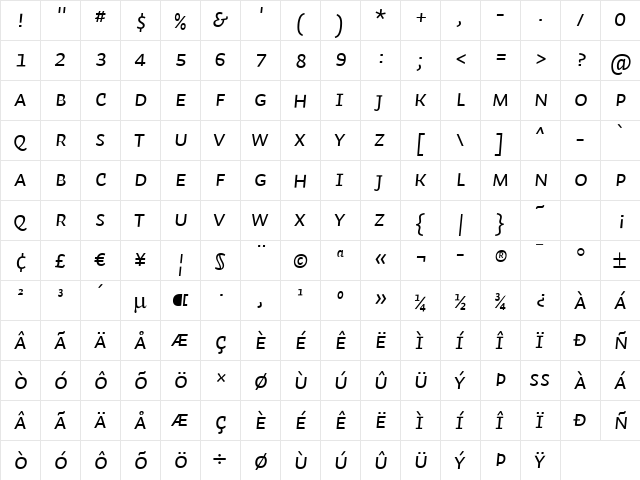
Auto 2 Italic SmCp Font Preview
Auto 2 Italic SmCp
Auto 2 Italic SmCp Font Details
| Style | Italic SmCp |
Design Context for Auto 2 Typeface
Auto 2 is a composed and adaptable typeface that performs quietly and consistently across a wide range of design contexts. The dynamic lean of this cut emphasises speed and emphasis in any layout.
Pro Tip: Use Auto 2 for emphasis, pull quotes, and subheadings where its slanted energy can add rhythm to the layout.